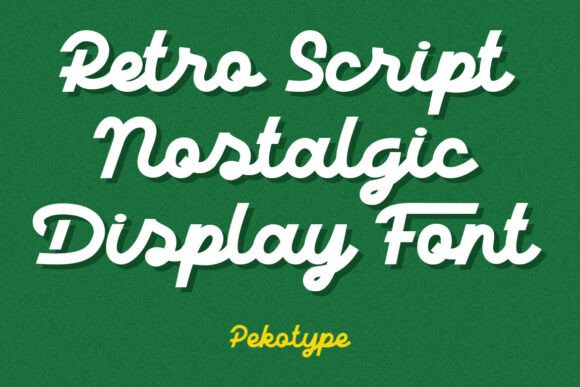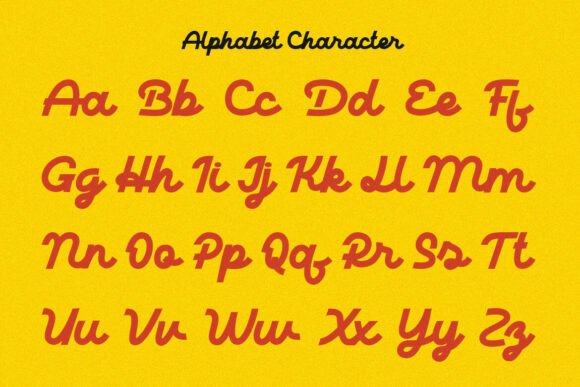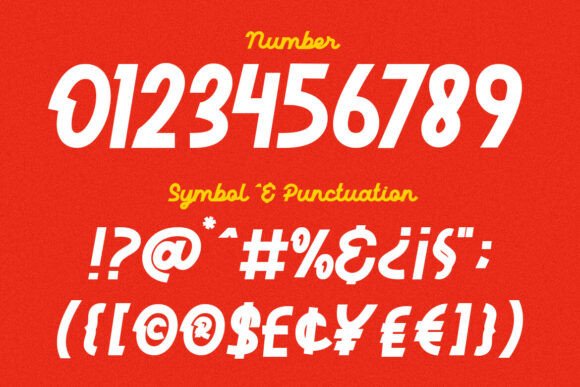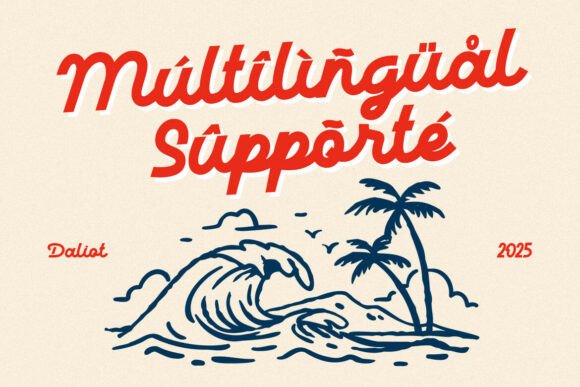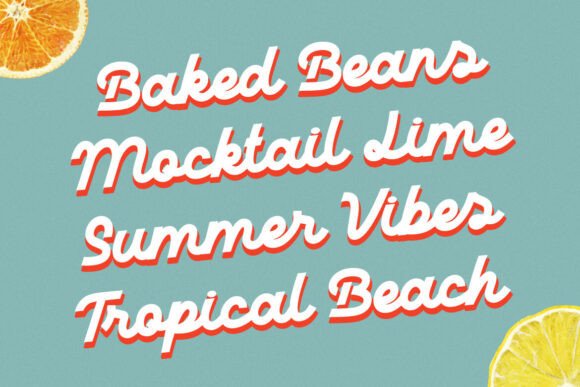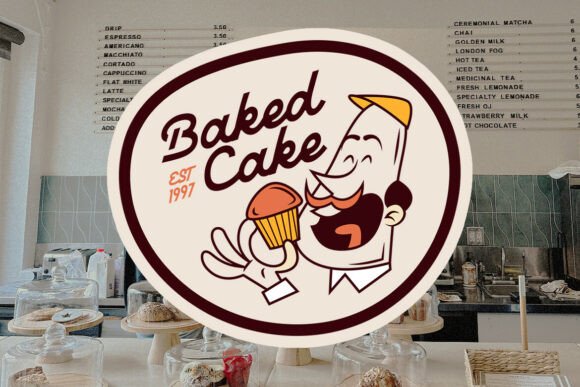
Introducing Daliot: The Ultimate Retro Script Display Font
Are you tired of using the same old fonts in your designs? Do you want to add a touch of personality and nostalgia to your branding, logos, and promotional materials? Look no further than Daliot, a bold retro script display font that captures the warmth of handwritten nostalgia with a strong modern twist.
The Perfect Blend of Retro and Modern
Daliot is designed to bring a sense of personality and flair to your designs. Its flat-ended strokes, smooth curves, and bold structure make every word pop. This font is perfectly crafted for designers and crafters who want to add an authentic retro vibe to their work while staying stylish and readable.
Key Features of Daliot
- Bold and Eye-Catching: Daliot’s bold structure ensures that your message stands out in any design.
- Retro Charm: The font’s flat-ended strokes and smooth curves evoke a sense of nostalgia and old-school cool.
- Handwritten Character: Daliot’s handwritten character adds a touch of personality to your designs.
- Versatile: This font is perfect for a wide range of design applications, including branding, logos, packaging, posters, promotional materials, and social media.
- Readability: Despite its bold and retro style, Daliot remains highly readable, making it perfect for designs that need to communicate a message effectively.
Use Cases for Daliot
Daliot is an incredibly versatile font that can be used in a variety of design applications. Here are some ideas to get you started:
- Retro Cafe Logo: Create a vintage-themed logo for your cafe or restaurant that evokes a sense of nostalgia and warmth.
- Vintage-Themed Poster: Design a poster that showcases your product or service in a retro setting.
- Merchandise Packaging: Add a touch of personality to your product packaging with Daliot’s bold and eye-catching style.
- Branding and Logos: Use Daliot to create a unique and memorable brand identity that stands out from the crowd.
- Social Media Graphics: Create eye-catching social media graphics that showcase your brand’s personality and style.
Why Choose Daliot?
With so many fonts available, why choose Daliot? Here are just a few reasons why Daliot stands out from the crowd:
- Unique Style: Daliot’s bold retro script style is unlike any other font on the market.
- Highly Versatile: This font can be used in a wide range of design applications, from branding and logos to packaging and posters.
- Easy to Read: Despite its bold style, Daliot remains highly readable, making it perfect for designs that need to communicate a message effectively.
- Nostalgic Charm: Daliot’s retro charm evokes a sense of nostalgia and old-school cool that will appeal to designers and crafters who want to add a touch of personality to their work.
If you’re looking for a font that adds a touch of personality and nostalgia to your designs, look no further than Daliot. This bold retro script display font is perfect for designers and crafters who want to create unique and eye-catching designs that stand out from the crowd. With its flat-ended strokes, smooth curves, and bold structure, Daliot is the perfect choice for any design project that needs a dash of old-school cool and a strong modern twist.